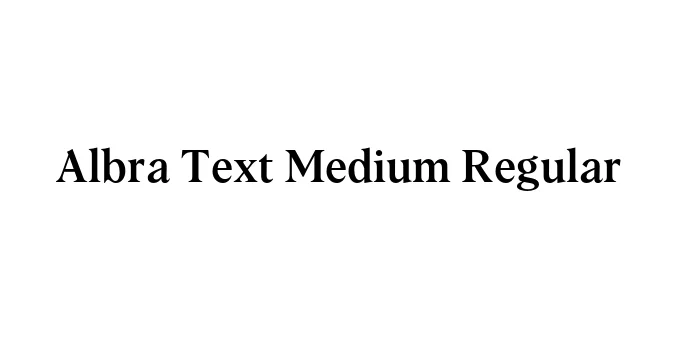
Albra Text Medium Regular
Designed by BumbumType
Albra Text Medium Regular is a sophisticated serif typeface belonging to the broader Albra family, specifically optimized for high legibility in long-form content. Developed by the BumbumType foundry, this weight strikes a perfect balance between the elegance of high-contrast display fonts and the sturdiness required for continuous reading. Its design features refined curves and a timeless aesthetic that bridges the gap between classic editorial styles and modern digital interfaces.
The Medium weight is particularly versatile, offering enough visual weight to hold its own in subheadings while remaining clear and crisp at small point sizes. By focusing on open apertures and carefully adjusted character spacing, the font ensures a smooth reading rhythm. It is an essential tool for designers seeking to convey a sense of authority and luxury without sacrificing the practical requirements of functional typography.
Albra Text Medium Regular Best Uses
Ideal for magazines, journals, and long-form digital articles.
Excellent for luxury brand identities and professional corporate stationery.
Perfect for body text in books and newspapers where readability is paramount.
Great for high-end blog content and sophisticated web interfaces.